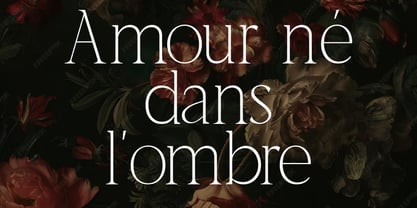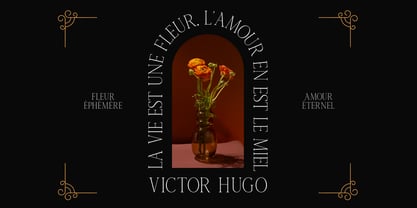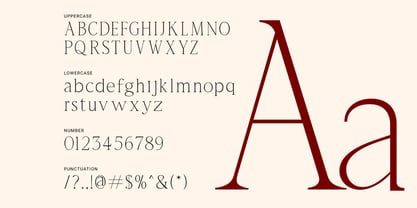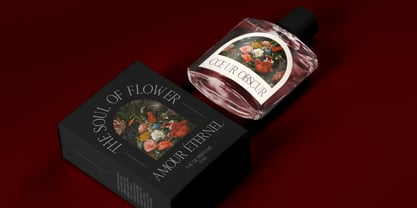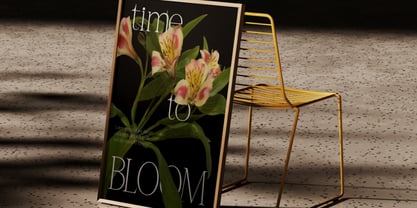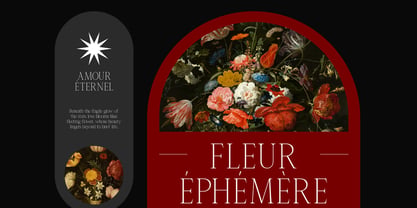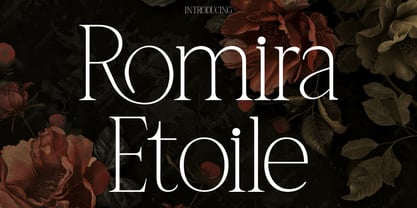
Romira Etoile
by Rasio Studio
The Romira Etoile Font Family was designed by Fajar Indra and published by Rasio Studio. Romira Etoile contains 1 styles. More about this family
Romira Etoile is a modern elegant serif typeface designed with an editorial spirit and refined sophistication. With its high-contrast strokes, delicate curves, and clean structure, this font evokes both luxury and timelessness, making it a perfect choice for magazine layouts, fashion branding, elegant packaging, and premium editorial titles. Relevance and Use Cases is perfect for editorial design, magazine title, luxury branding, fashion logo, beauty packaging, wedding invite, headline text, modern serif, high-end brand, minimalist layout, lookbook design, premium label, book cover, elegant website, refined serif, classy identity, style blog, publishing use, art book, modern editorial.